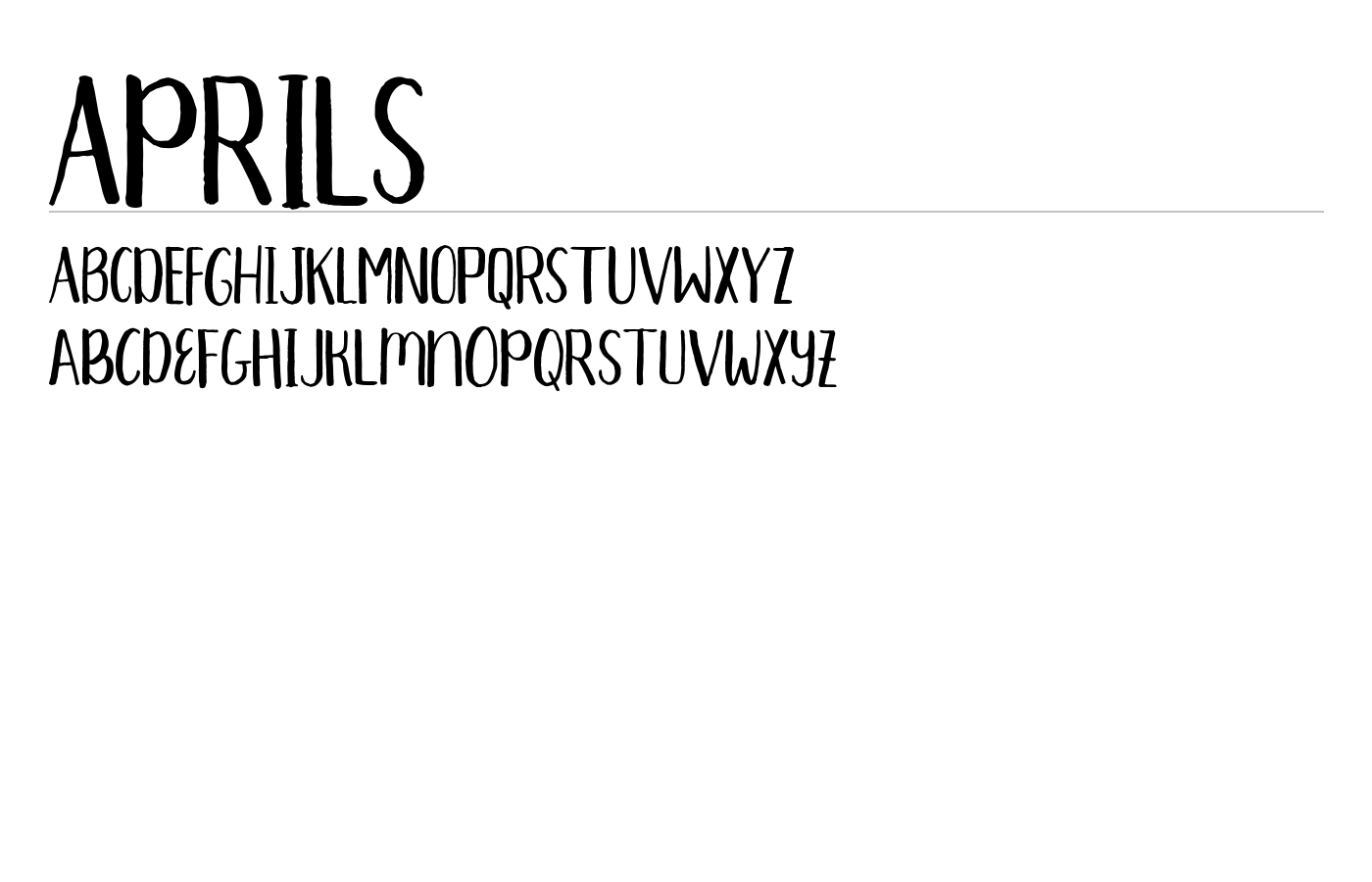
Aprils is a playful, hand-drawn sans serif font characterized by its tall, narrow letterforms and irregular stroke widths that evoke a casual, handcrafted feel. Its quirky, slightly uneven shapes create a friendly and approachable vibe, making it ideal for creative projects, informal branding, and designs that seek a personal touch. This font works well in headlines, logos, and posters where a unique, whimsical personality is desired.
Aprils Font
About Aprils Font